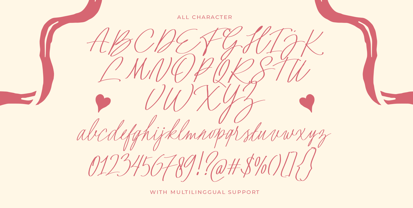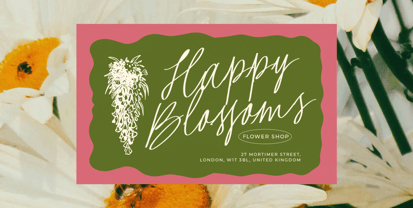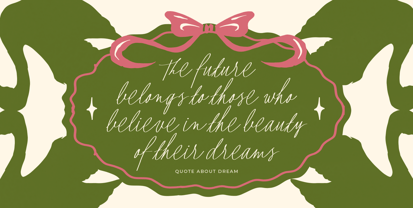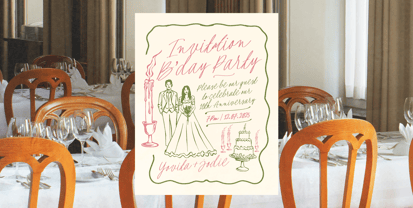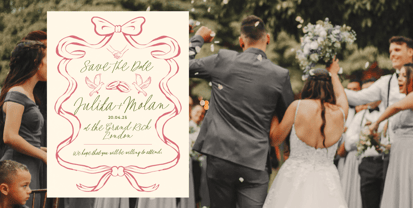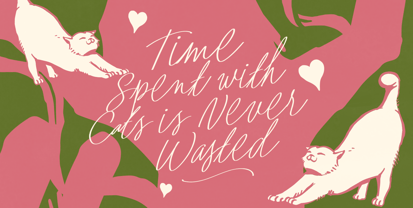
Amalia Noni
por Letterhend
La familia tipográfica Amalia Noni fue diseñada por Hendry Juanda y publicada por Letterhend. Amalia Noni contiene 1 estilos. Más información sobre esta familia
Amalia Noni is a charming handwritten typeface with a touch of vintage flair, perfect for crafting romantic and whimsical designs. Its flowing, natural strokes give a personal and heartfelt feel, making it ideal for wedding stationery, packaging, feminine branding, and greeting cards. This font also includes a bonus illustration pack, enhancing your creative options with delightful extras that pair beautifully with the script.
Features :
• Uppercase & lowercase
• Numbers and punctuation
• Alternates Character
• Multilingual support
Diseñadores: Hendry Juanda
Fundición: Letterhend